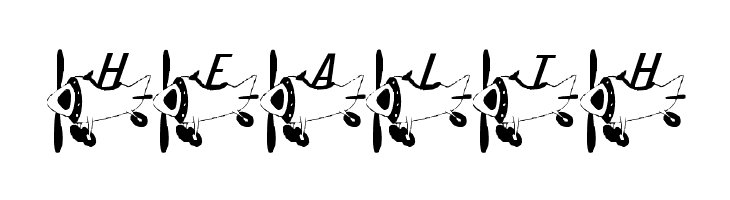
( Dingfontbats )
A whimsical font with letters integrated into airplane designs, perfect for creative projects.
( Dingfontbats )
A playful, cloud-themed decorative font with bold, rounded letters.
( Dingfontbats )
A whimsical font with letters integrated into playful monkey illustrations.
( Dingfontbats )
Whimsical display font with letters inside ice cream cones.
( Dingbat Dungeon )
Rows of thick-bordered square placeholders, some with partial internal patterns.
( Dingbat Dungeon )
An ornate, decorative font with intricate floral embellishments.
( Dingbat Dungeon )
A decorative font with intricate, artistic designs within each character.
( Dingbat Dungeon )
A bold, geometric font with a blocky, digital appearance.
( Dingbat Dungeon )
A bold, geometric font with a maze-like, intricate design.
( Dingbat Dungeon )
A decorative, maze-like font with bold, geometric patterns.